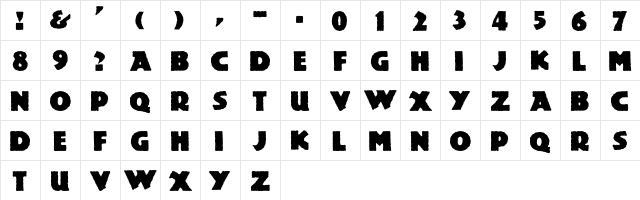
Blocker Regular Font Preview
Blocker Regular
Design Context for Blocker Typeface
Blocker is a composed and adaptable typeface that performs quietly and consistently across a wide range of design contexts.